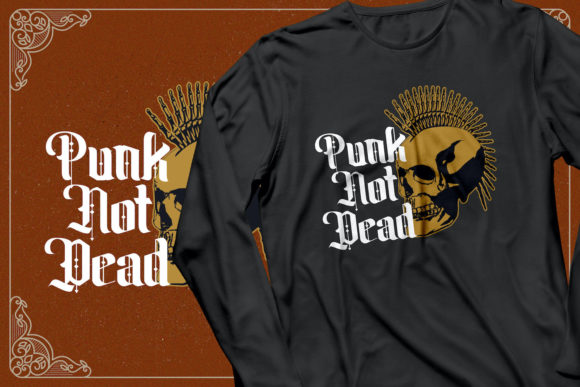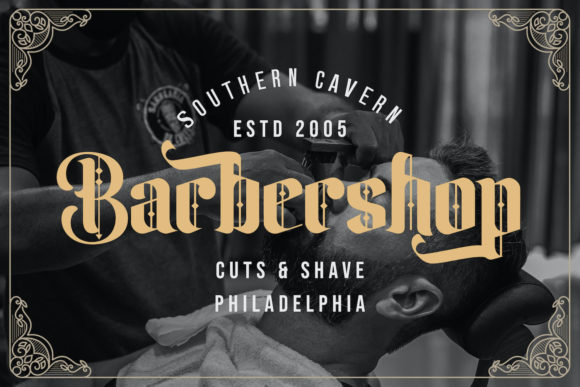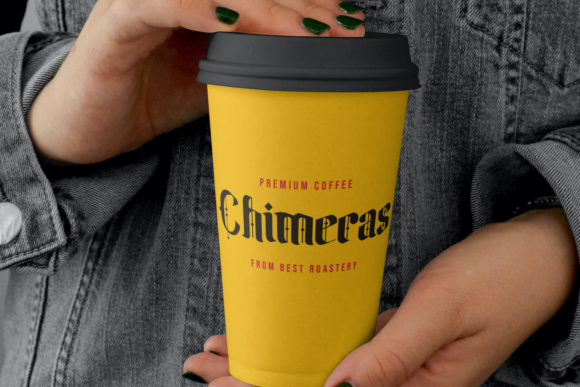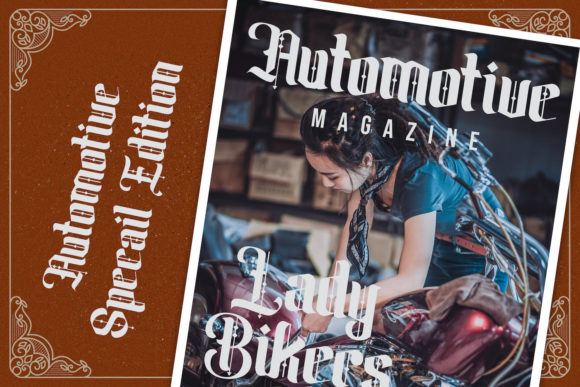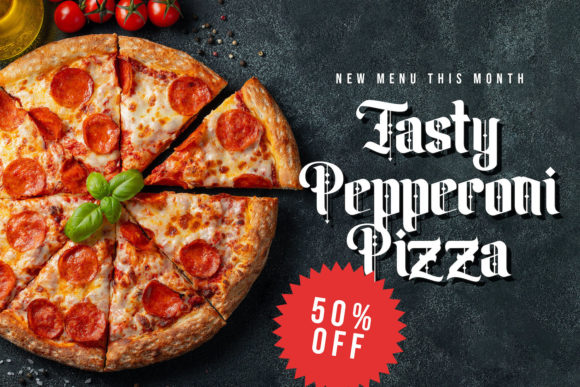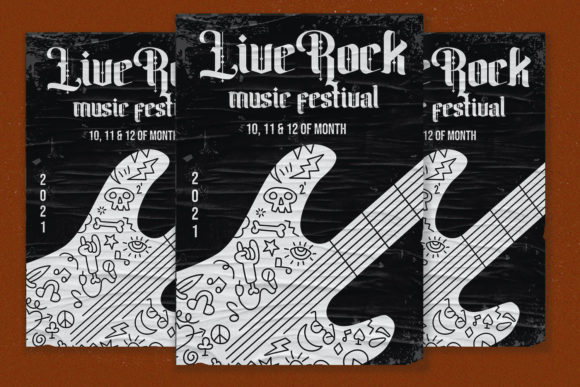
Discover the Power of Biqaby Goku Font
Remember that moment when you finally nailed the perfect design concept? The one that made all your hard work worth it? That feeling of satisfaction is what drives us to push the boundaries of creativity. And for designers, having the right tools is crucial in achieving that perfect blend of style and substance.
Enter the Biqaby Goku Font, a bold, distinct, and unique blackletter font that’s about to revolutionize your design library. With its assertiveness and elegance, this font is the perfect addition to your toolkit, elevating any creation to new heights. Whether you’re a seasoned pro or just starting out, the Biqaby Goku Font is sure to impress.
As a valuable asset to your design arsenal, the Biqaby Goku Font is a game-changer. Its versatility and uniqueness make it an ideal choice for designers looking to add a touch of sophistication to their work. With the Biqaby Goku Font, the possibilities are endless, and your designs will never be the same again.
Biqaby Goku Font Key Features
- Unique Characteristics: Biqaby Goku Font features bold, dynamic letterforms with exaggerated lines and curves, giving it a distinctive and energetic appearance.
Biqaby Goku Font Review
I recently had the chance to work with the Biqaby Goku Font, and I must say it’s a unique addition to any design project. Here are my honest thoughts.
- The font’s bold, futuristic style is perfect for creating a dynamic and edgy look.
- The font is highly customizable, allowing designers to tweak the weight, style, and other properties to suit their needs.
- The font’s glyph set is comprehensive, making it suitable for a wide range of languages and applications.
- The font may not be suitable for all types of projects, particularly those that require a more traditional or conservative look.
- The font’s bold style can be overwhelming if not used sparingly, so designers will need to use restraint when applying it.
- The font’s customizability can also be a double-edged sword, as it may require more time and effort to achieve the desired look.
Overall, I think the Biqaby Goku Font is a solid choice for designers looking to add some excitement and energy to their projects. While it may not be suitable for every project, it’s definitely a great option for those who want to make a statement.
For optimal results, use the Biqaby Goku font in bold or italic styles to emphasize text.
Use the font in combination with other bold or italic fonts to create a visually appealing contrast.
The Biqaby Goku font is ideal for comic book-inspired designs, manga-style illustrations, and bold, eye-catching headlines.
Use it to add a touch of Japanese flair to your designs and make them stand out.